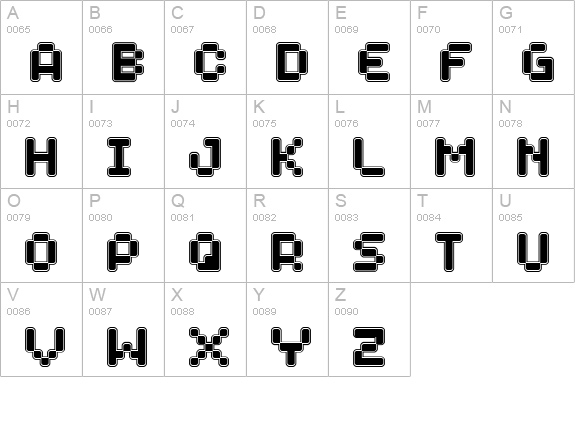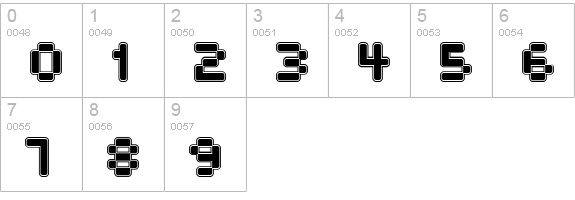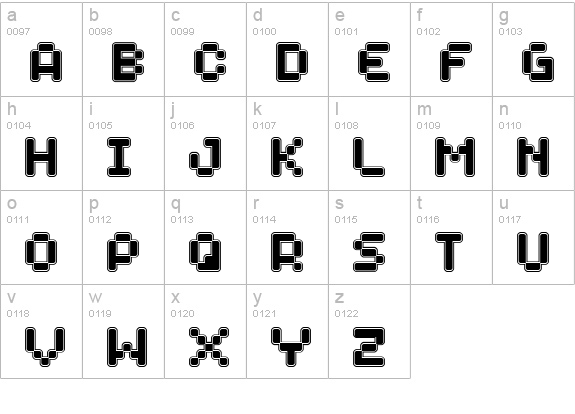
Spaceboy Font Details
Introducing Spaceboy, a captivating font that takes your imagination to new dimensions. This futuristic typeface is the perfect blend of modern and cosmic elements, making it an ideal choice for any design project that aims to transport your audience to the outer reaches of the universe. With its sleek and stylish letterforms, Spaceboy exudes an otherworldly charm that brings a touch of celestial wonder to your creations. Its unique design captures the essence of space exploration, featuring sharp edges and smooth curves that mirror the vastness of the cosmos. But what sets Spaceboy apart is its accessibility. This remarkable font is not only visually stunning, but it is also freely available to download at FontsMarket.com. Whether you're a professional designer or an aspiring artist, you can now harness the power of Spaceboy without breaking the bank. Spaceboy's versatility knows no bounds, as it effortlessly adapts to various design contexts. From captivating logos and striking headlines to eye-catching posters and captivating social media graphics, this font will elevate your designs to new celestial heights. So go ahead and explore the universe of creativity with Spaceboy. Let your imagination take flight as you effortlessly incorporate this font into your next project. Download it for free at FontsMarket.com and embark on a cosmic design journey that will leave your audience in awe.